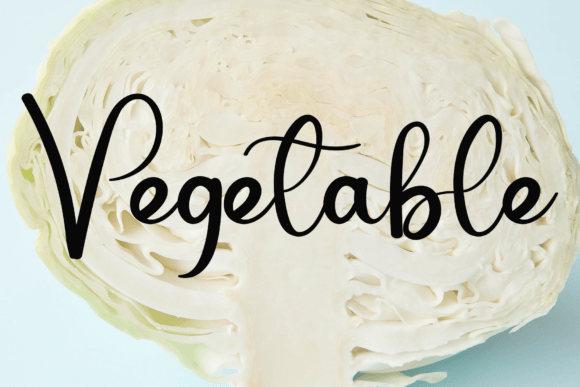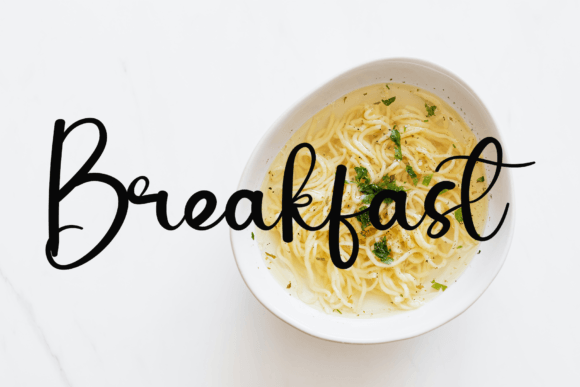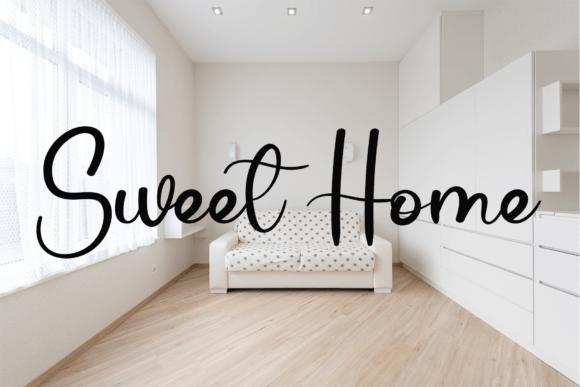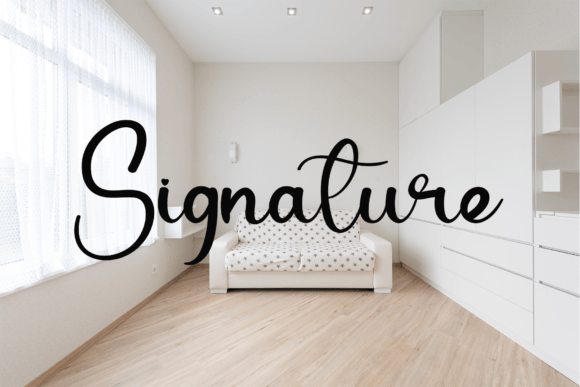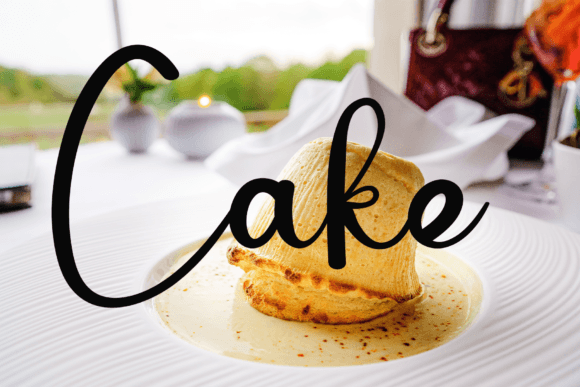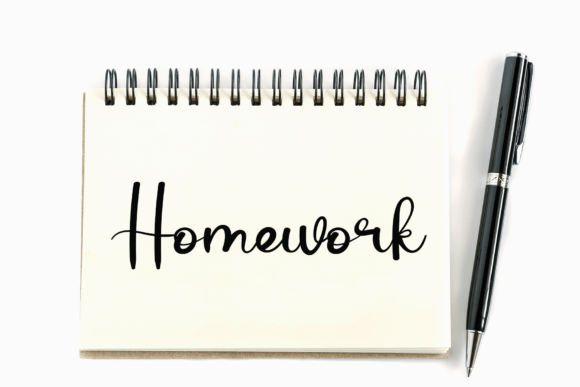
Bakery Font: The Sweetest Addition to Your Design Collection
Are you a designer or crafter looking for a font that adds a touch of whimsy and fun to your projects? Look no further than the Bakery font! This sweet and friendly handwritten font is perfect for creating wedding invitations, cards, and other designs that need a playful twist.
What Makes Bakery Font So Special?
Bakery font is a one-of-a-kind typeface that exudes warmth and friendliness. Its handwritten charm makes it ideal for designs that require a personal touch. Whether you’re creating wedding invitations, birthday cards, or social media graphics, Bakery font is sure to bring a smile to your audience’s faces.
Key Features of Bakery Font
- Cute and Fun: Bakery font is designed to add a playful touch to your designs. Its fun and quirky style makes it perfect for projects that require a lighthearted approach.
- Handwritten Charm: The font’s handwritten style gives it a personal and unique feel that’s perfect for creating special and memorable designs.
- Versatile: Bakery font can be used for a wide range of design projects, from wedding invitations and cards to social media graphics and more.
- Easy to Read: Despite its playful style, Bakery font is easy to read and understand, making it perfect for designs that require a clear and concise message.
Perfect Uses for Bakery Font
Bakery font is a versatile typeface that can be used for a variety of design projects. Here are some perfect uses for this sweet font:
- Wedding Invitations: Add a touch of romance and whimsy to your wedding invitations with Bakery font.
- Birthday Cards: Create fun and playful birthday cards that will make the recipient feel special.
- Social Media Graphics: Use Bakery font to create eye-catching social media graphics that will make your audience smile.
- Party Decorations: Create custom party decorations, such as banners and signs, with Bakery font.
Tips for Using Bakery Font
Here are some tips for getting the most out of Bakery font:
- Pair with Other Fonts: Pair Bakery font with other fonts to create a unique and interesting design.
- Use for Headlines and Titles: Use Bakery font for headlines and titles to add a touch of whimsy and fun.